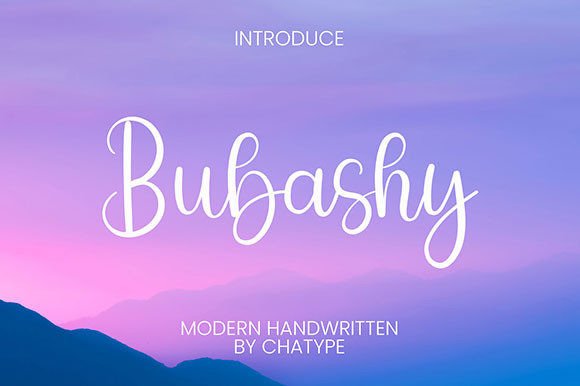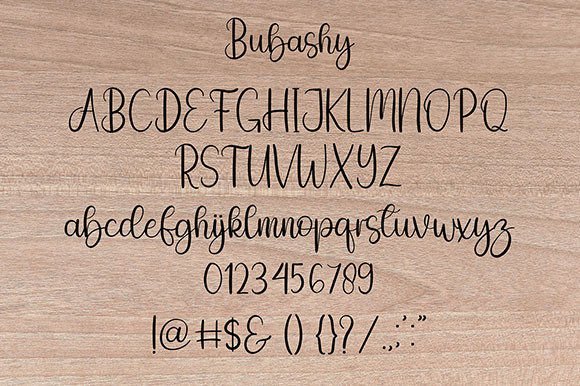
Bubashy Font
About Bubashy Font
Bubashy is a fun and friendly handwritten script font. It maintains its classy calligraphic influences while feeling contemporary and fresh. Fall in love with it and bring your projects to the highest levels!